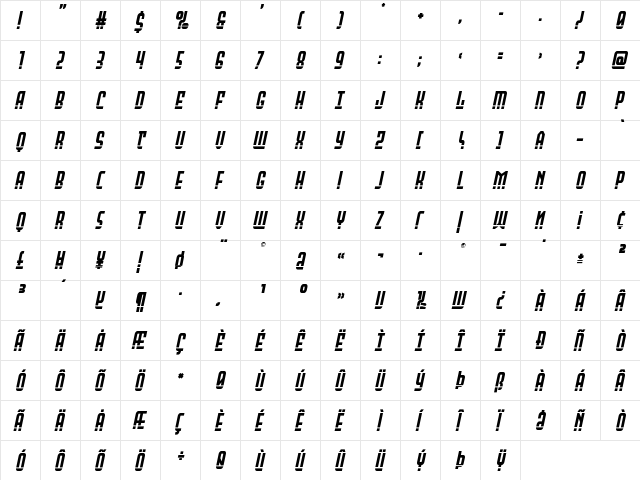
Peace & Houston Laser Italic Regular
Design Context for Peace & Houston Laser Italic Typeface
Peace & Houston Laser Italic is a composed and adaptable typeface that performs quietly and consistently across a wide range of design contexts. Its italic angle brings a sense of urgency and motion to the letterforms.
Pro Tip: Use Peace & Houston Laser Italic for emphasis, pull quotes, and subheadings where its slanted energy can add rhythm to the layout.